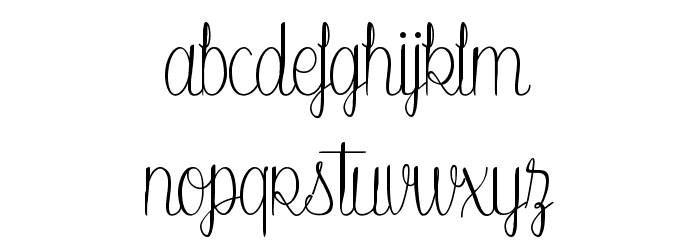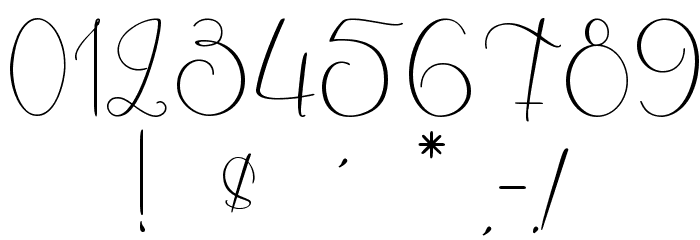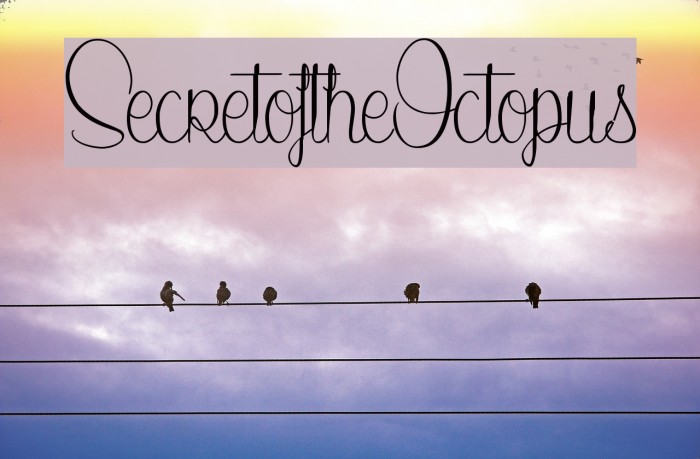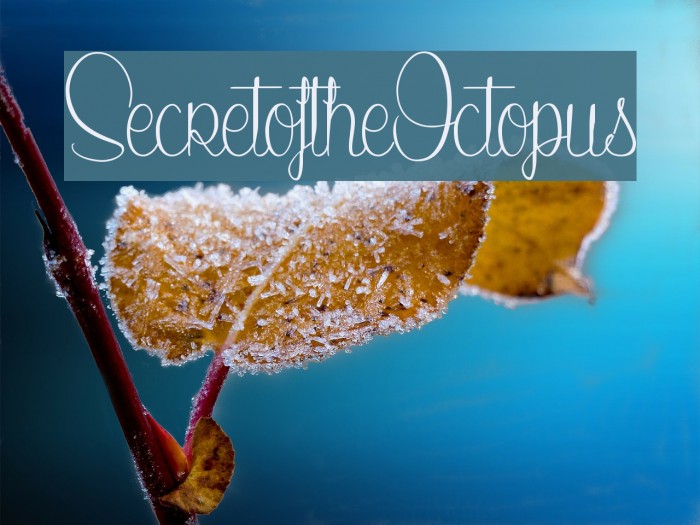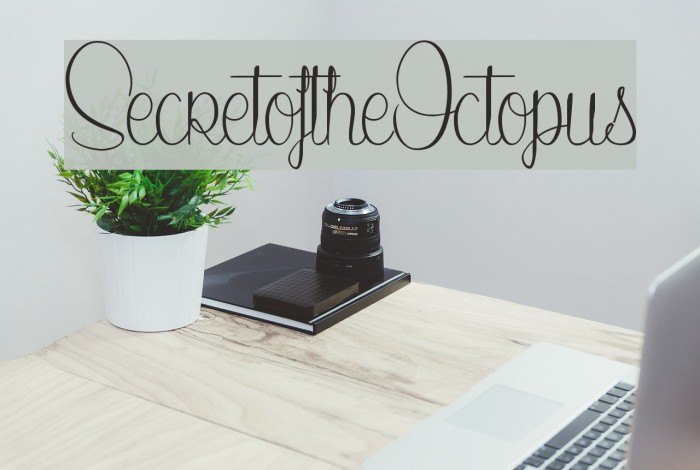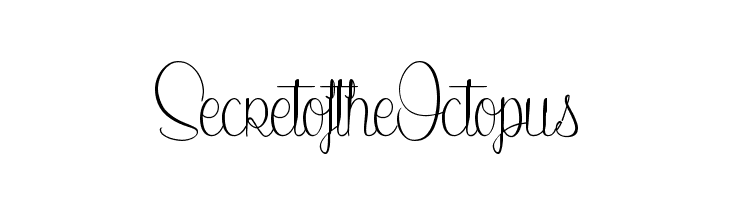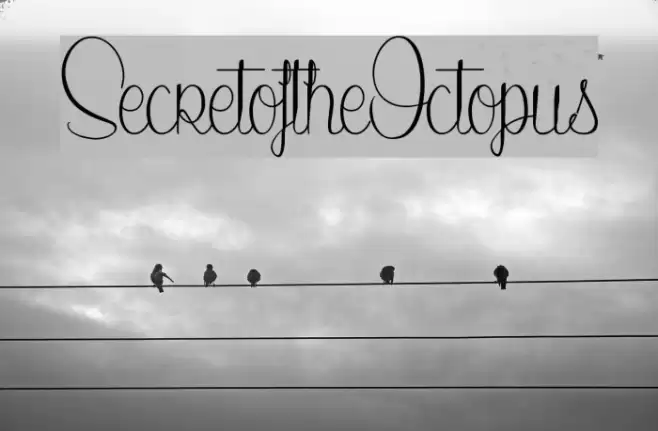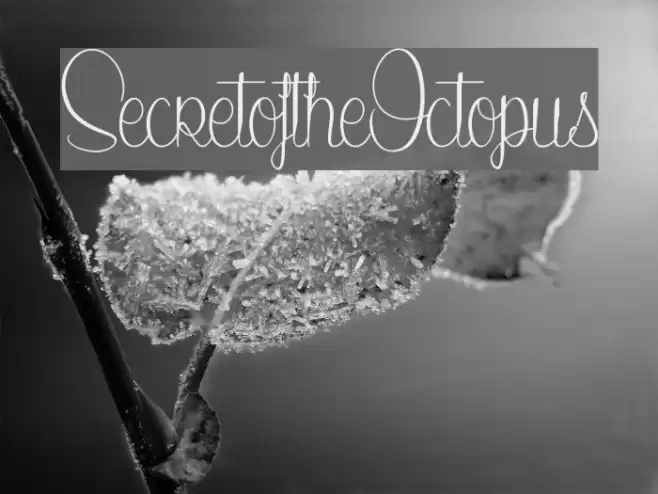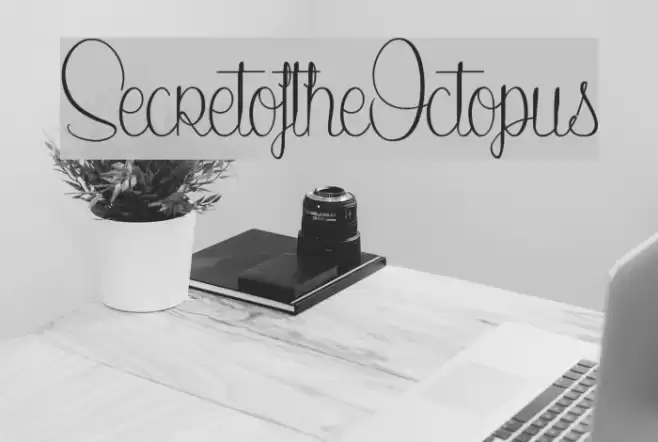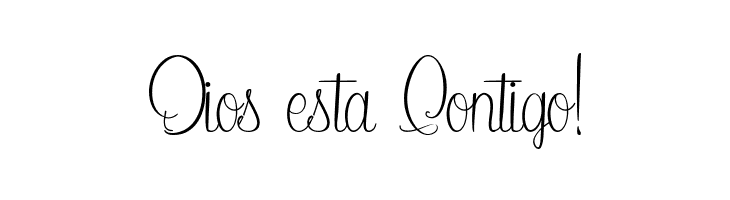
SecretoftheOctopus Font
This font features an elegant and whimsical script style, characterized by its flowing, interconnected letters and decorative swirls. The uppercase letters are particularly ornate, with intricate loops and flourishes that give a sense of movement and grace. The lowercase letters maintain a consistent style, offering a harmonious blend of simplicity and embellishment. Numbers and special characters are designed to match the overall aesthetic, ensuring a cohesive look across all text. The font's delicate lines and artistic flair make it suitable for creative and expressive projects.
An elegant, whimsical script font with decorative swirls and flowing lines.
- Proposed Projects: Ideal for wedding invitations, greeting cards, branding, and artistic projects requiring a touch of elegance.
- Use Case: Logos, Invitations, Artistic projects